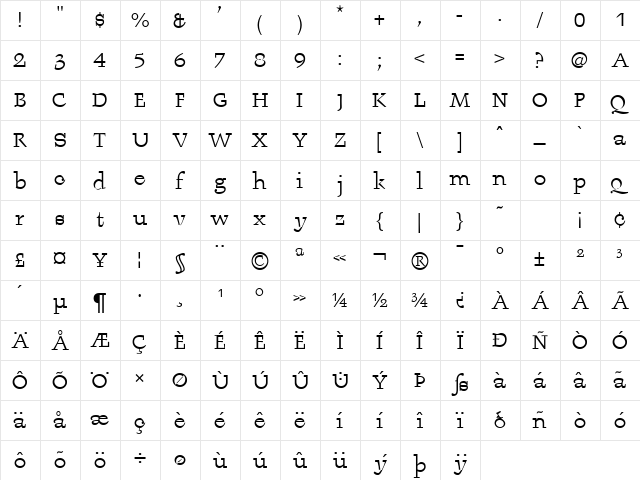
BurgstaedtAntiqua LT Std Rg Regular
| Foundry | Linotype Library GmbH |
| Designer | Richard Yeend |
Design Context for BurgstaedtAntiqua LT Std Rg Typeface
BurgstaedtAntiqua LT Std Rg is a composed and adaptable typeface that performs quietly and consistently across a wide range of design contexts. The delicate stroke weight brings airiness and refinement to layouts.